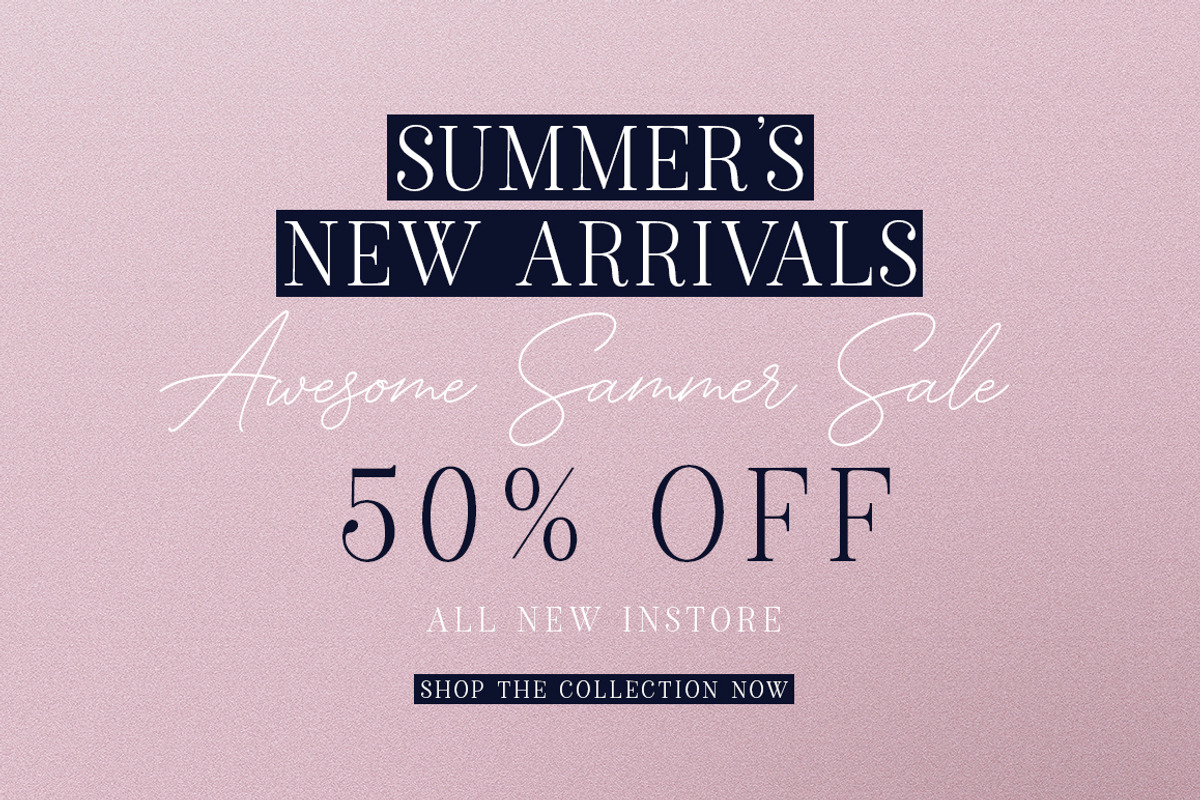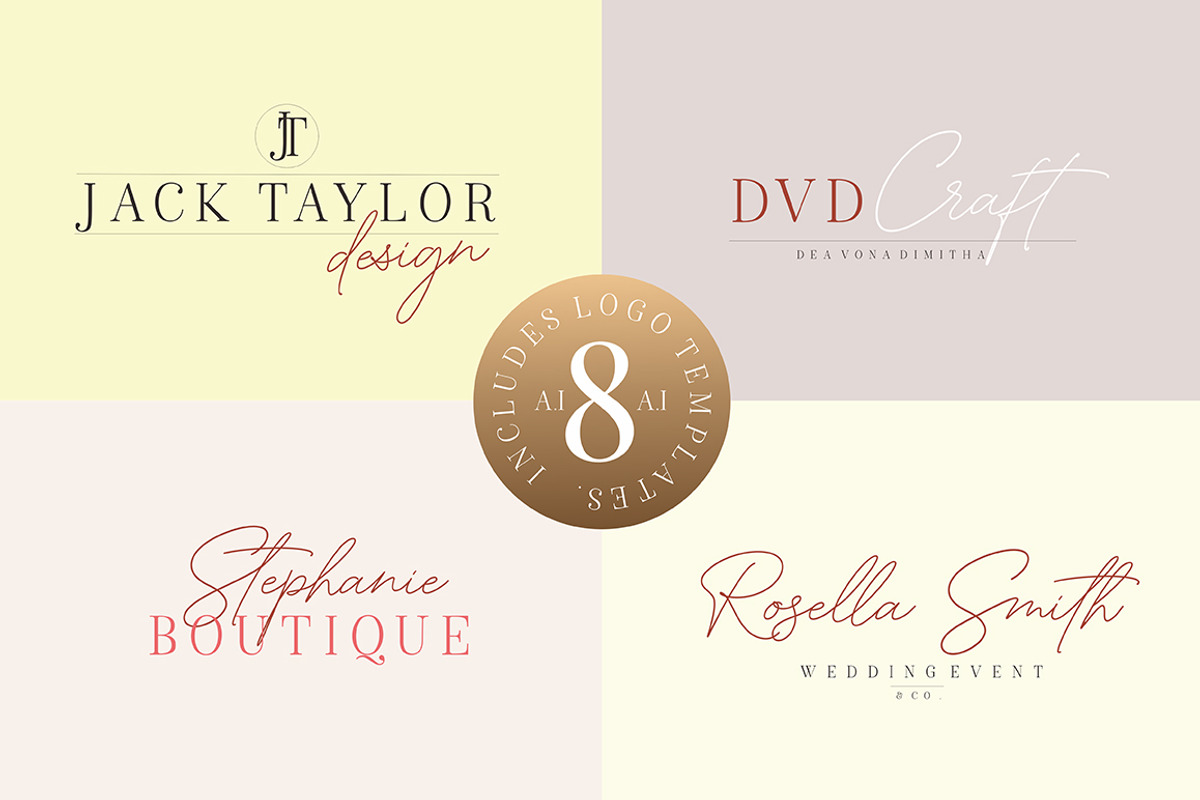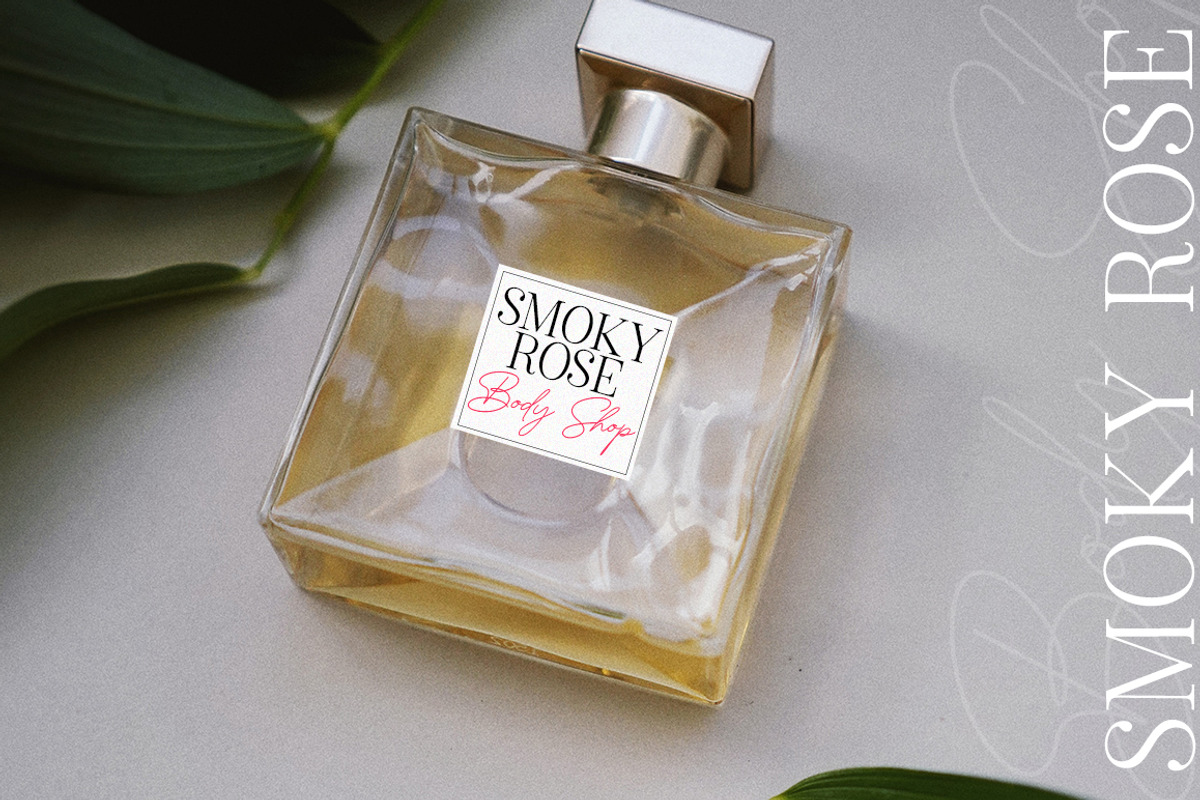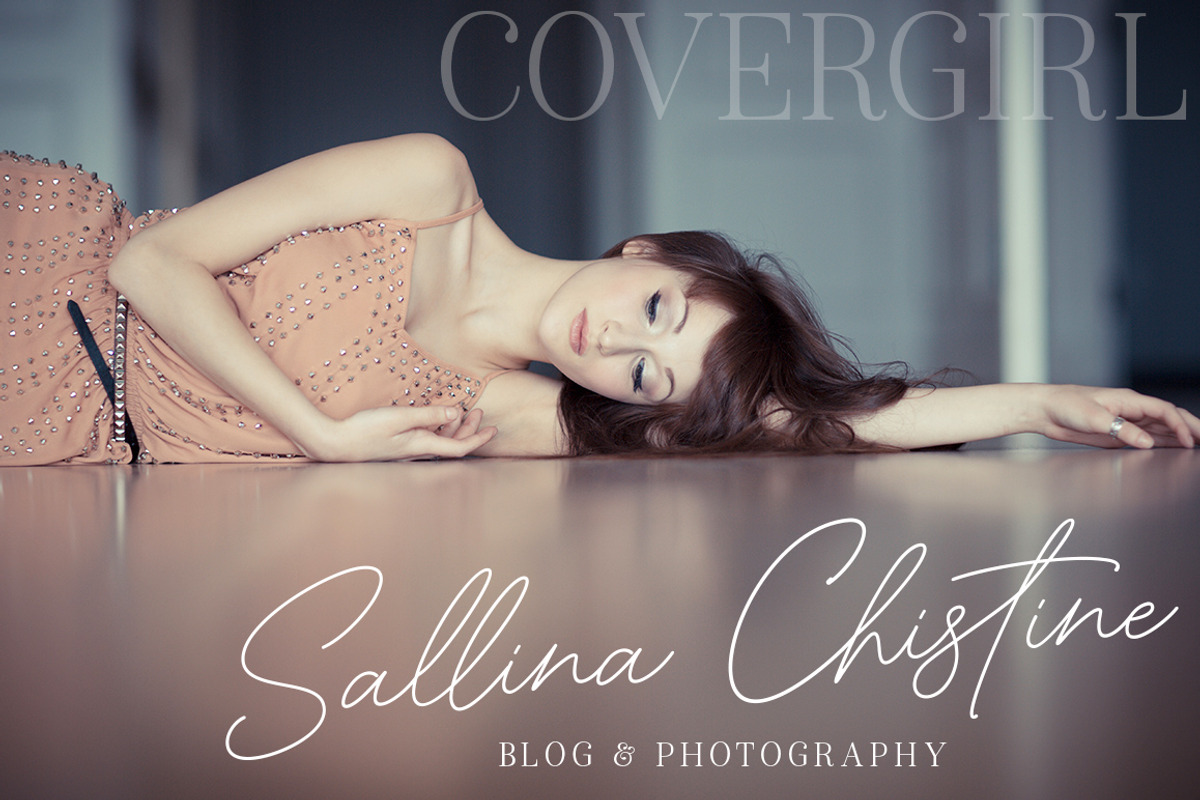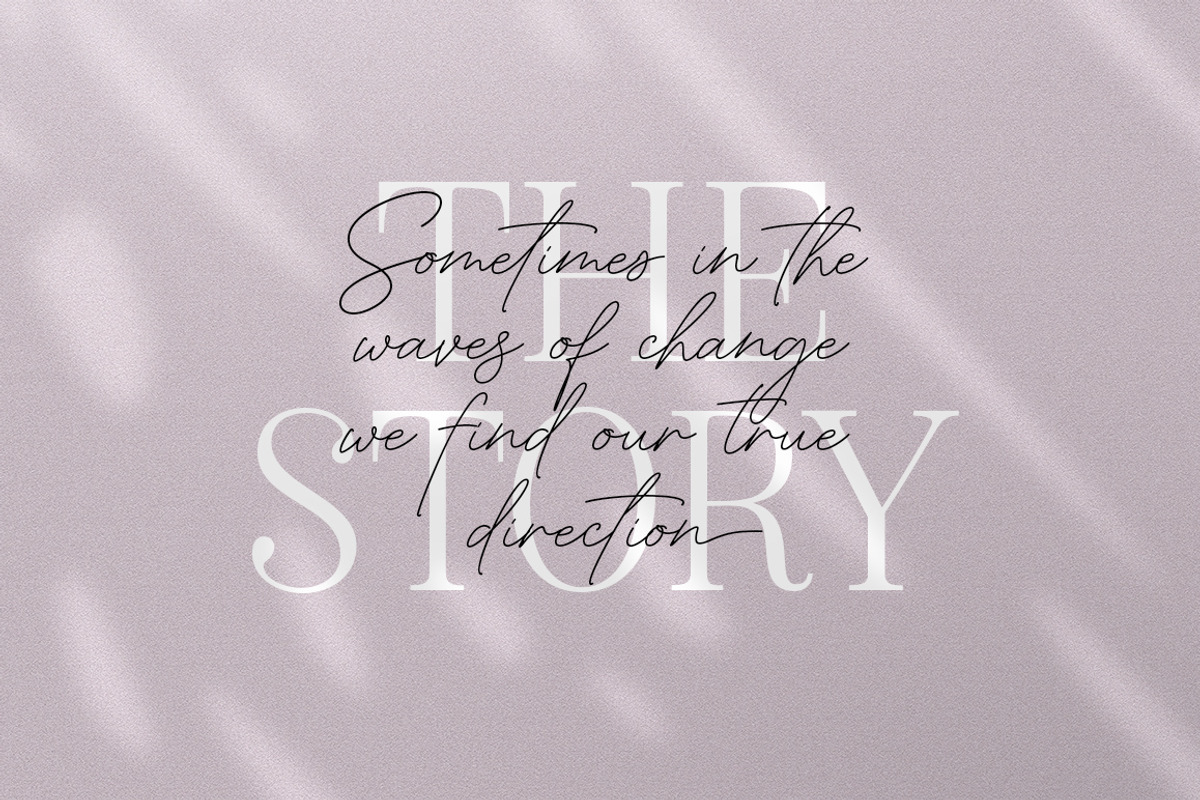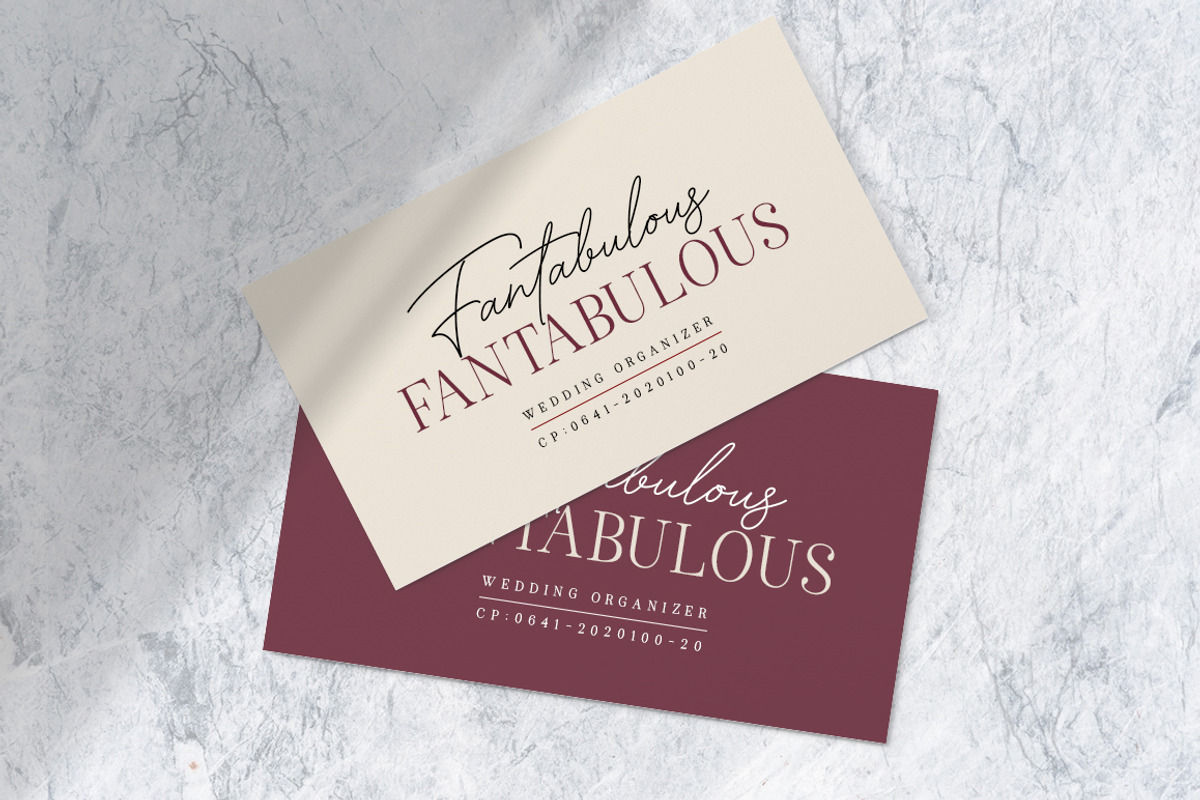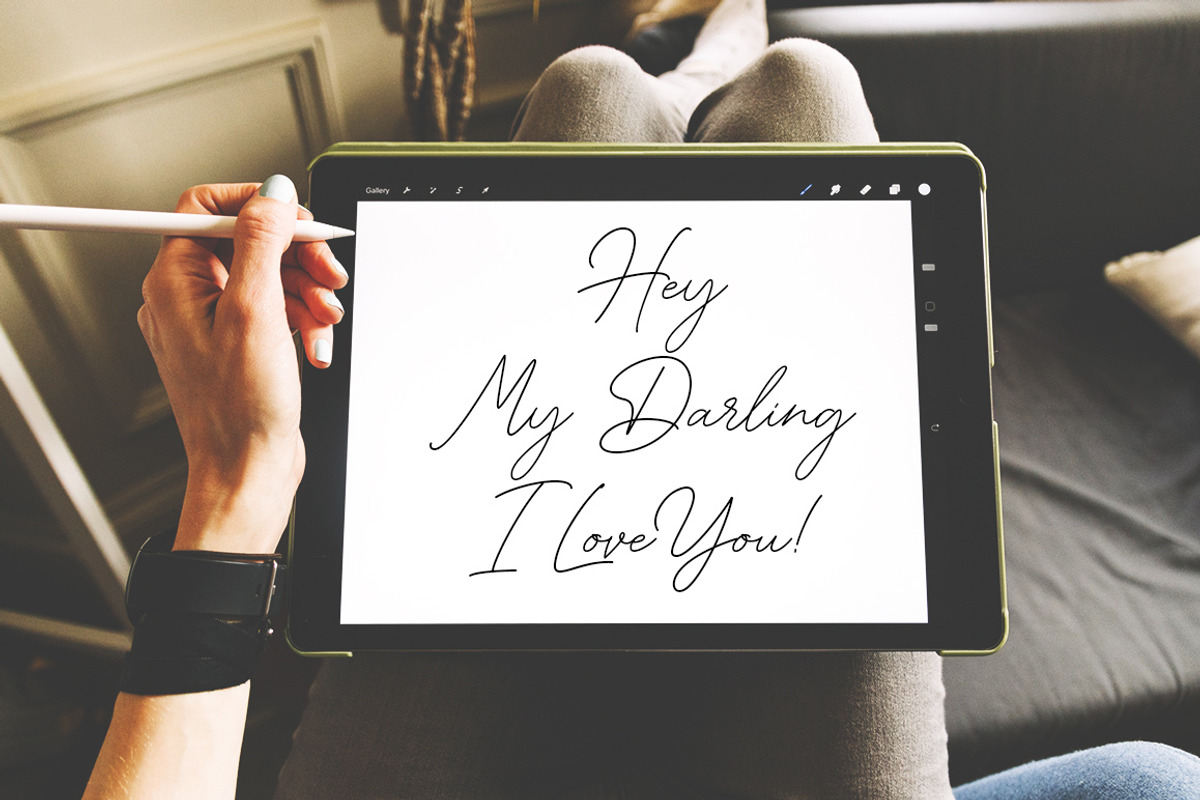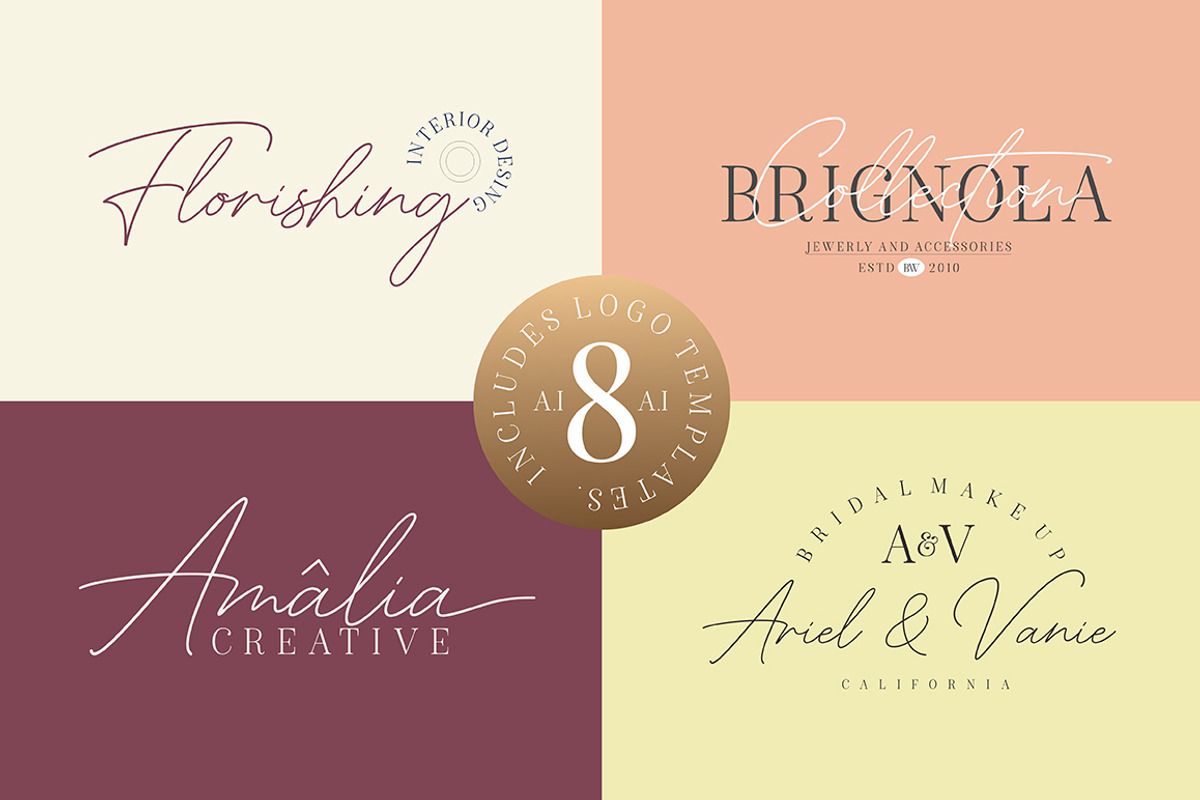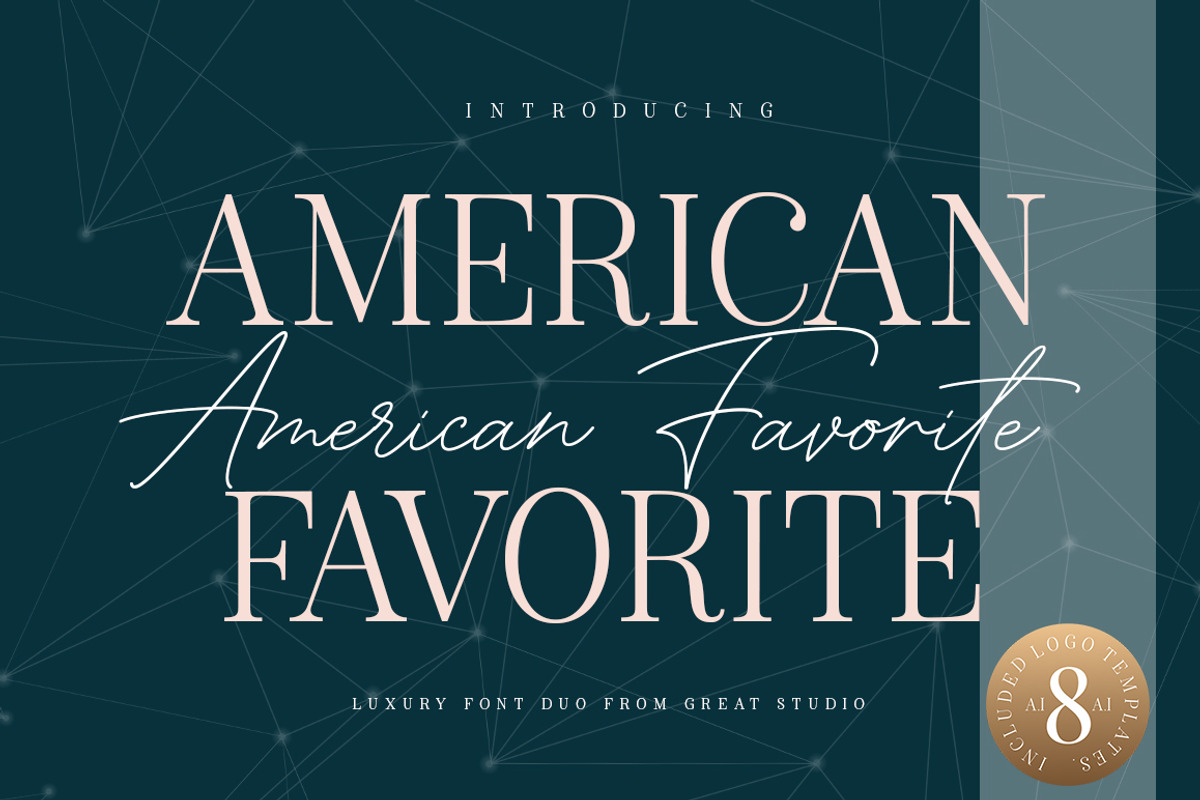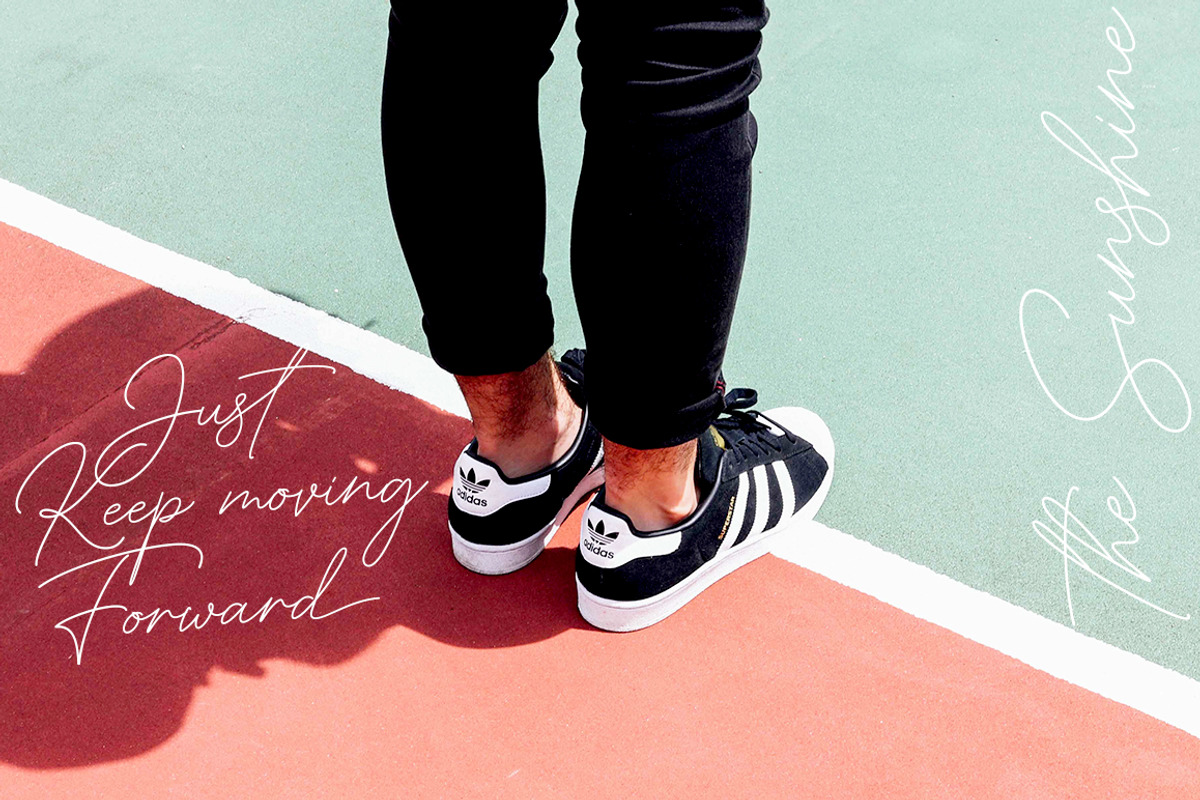
American Favorite Font Duo + Logo
American Favorite is a luxury font. which comes with a combination of modern and elegant fonts, namely serif and signature style. You can combine it to make beautiful typography. This hand display style makes it perfect for use in all your design projects be it logos, labels, packaging designs, blog titles, posters, wedding designs, social media posts, Instagram designs, card invitations, art quotes, home decor, book / cover titles , etc.
Already matched up and ready to be used together for your next design!
American Favorite Script • Thin and realistic signature fonts containing 52 automatic ligatures, lowercase letters, uppercase letters, all punctuation & numbers
American Favorite Serif • An all-caps Serif font containing uppercase, all punctuation & numerals. 8 BONUS logo templates that you can edit and customize in Adobe Illustrator.